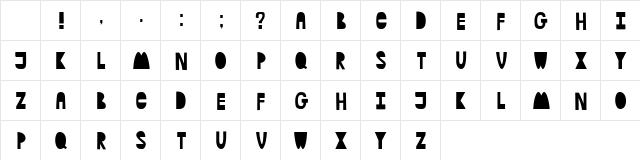
Complete HardQuestions Regular glyph index. Displaying only characters natively supported by HardQuestions Regular font.
HardQuestions is a composed and adaptable typeface that performs quietly and consistently across a wide range of design contexts.